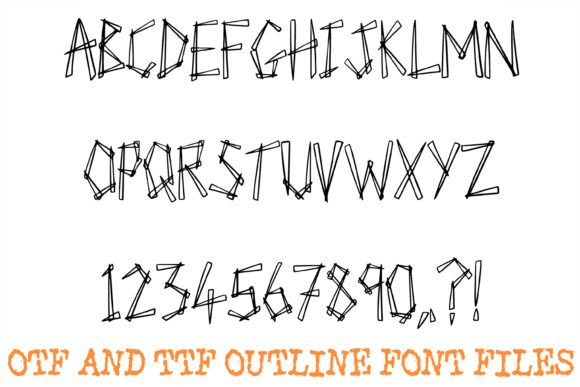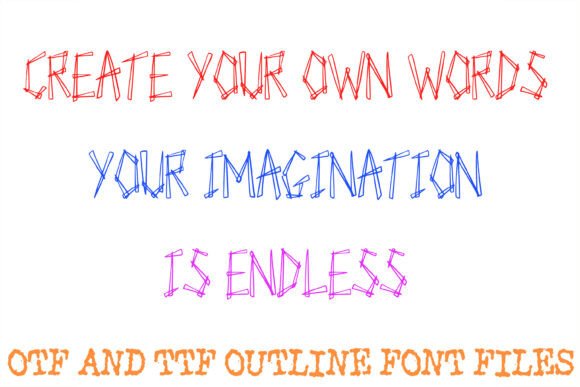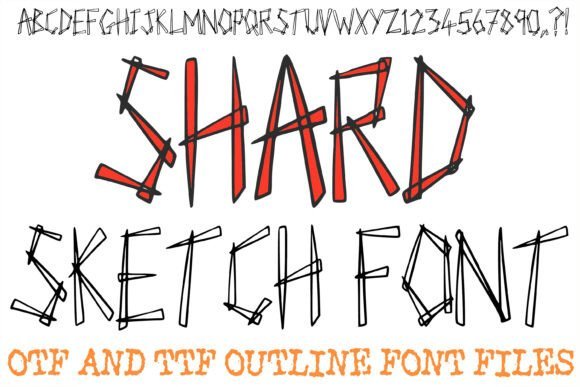
Introduction to Shard Sketch Lettering Hand Drawn Font
Shard Sketch: Hand-Drawn Sharp Lettering Inject a dose of raw, kinetic energy into your layouts with Shard Sketch Characterized by its jagged, β€œglass-shard” geometry and overlapping sketch lines, this outline font captures a rebellious, D.